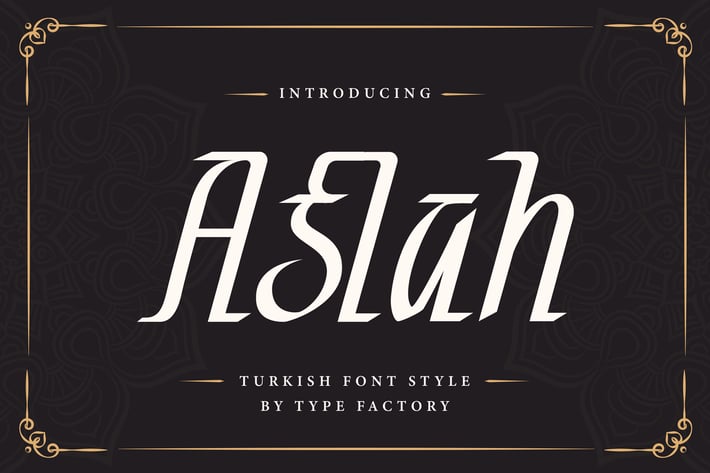
Aslah – Turkish Font
Aslah is an interesting display font inspired by the style and feel of the Turkish font.
This font is suitable for branding logos, Turkish themes, and any other projects you can think of.